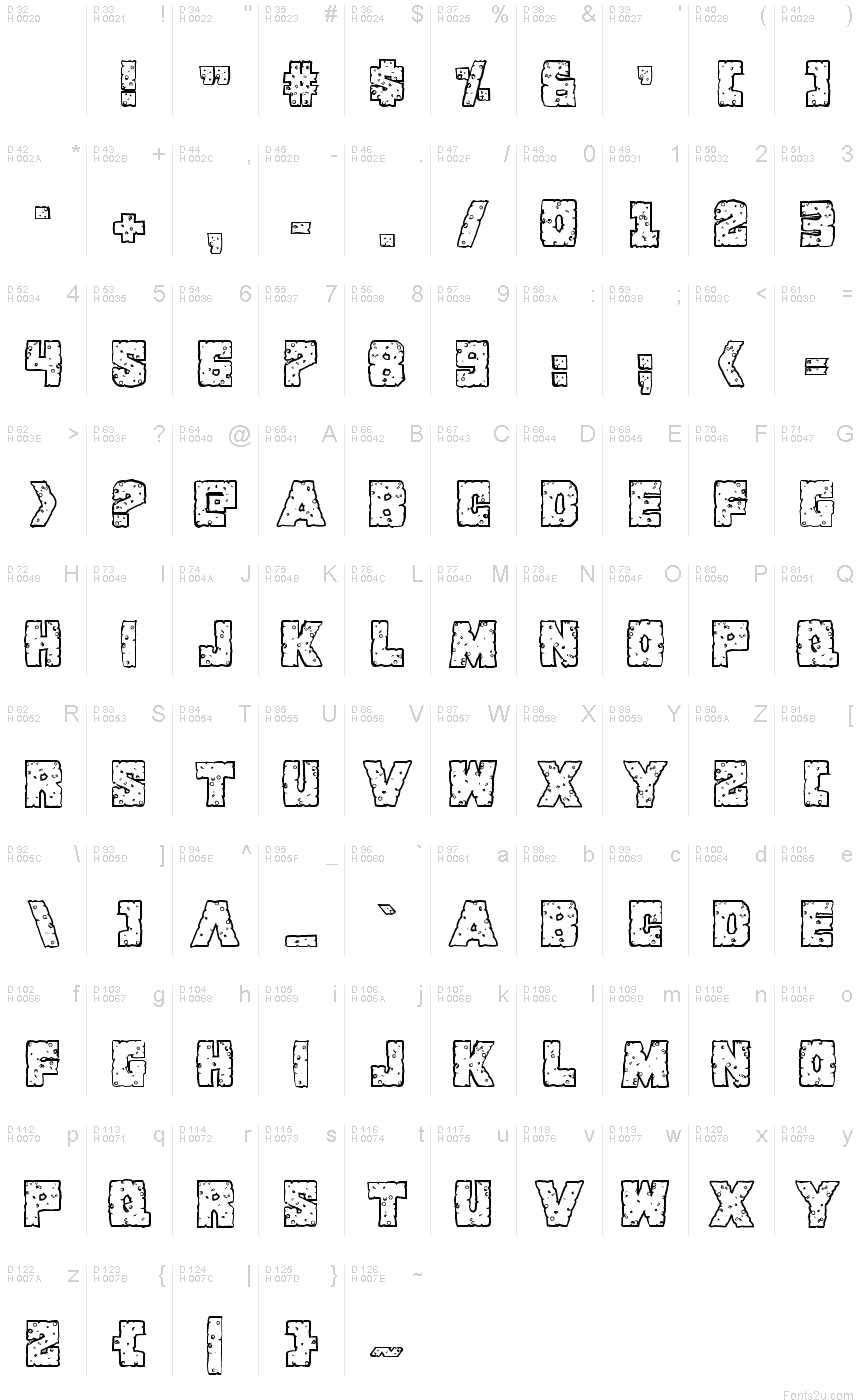
King Commando Riddled III by Daniel Zadorozny of Iconian Fonts is a free eroded cartoon display font with broad, uneven capitals and a battered comic-book attitude. Thick outlines hold the shapes together as chips, holes, and small impact-like marks break across their surfaces. The irregular edges and crowded internal damage make each letter look roughly cut from scarred material.
Its commando-style genre points toward action-game title screens, military parody posters, and pulp adventure covers, where exaggerated lettering matches noisy illustration and fast pacing. It can also turn merchandise names and event graphics into part of the artwork, with every letter acting like a dented cartoon prop.
King Commando Riddled III